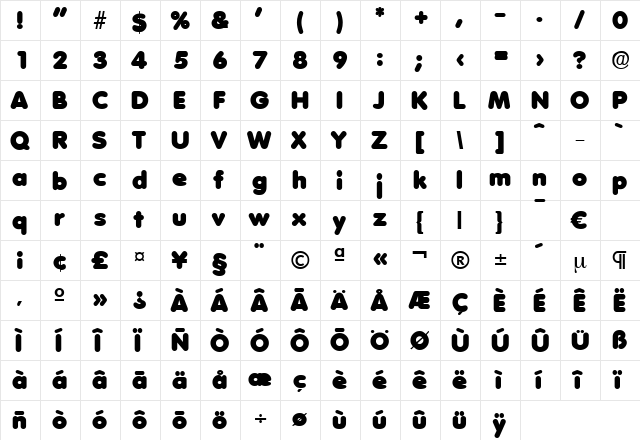
Volkswagen-Heavy Regular
Design Context for Volkswagen-Heavy Typeface
Volkswagen-Heavy is a composed and adaptable typeface that performs quietly and consistently across a wide range of design contexts.